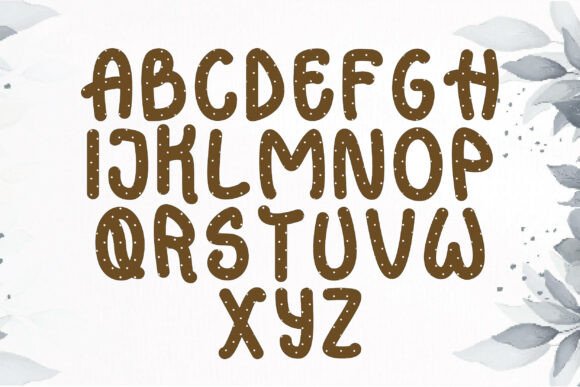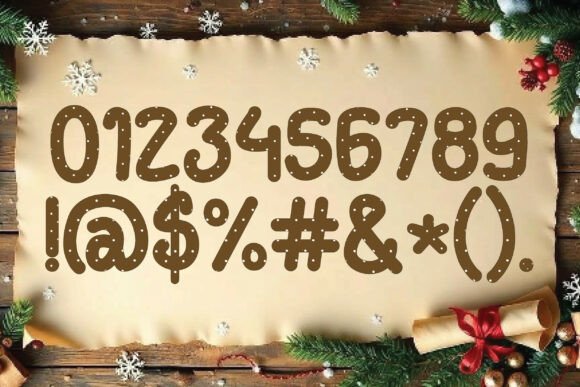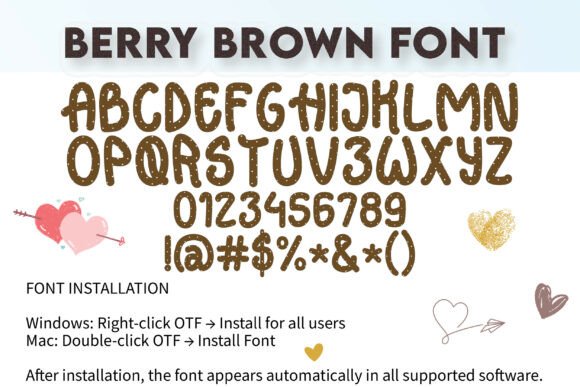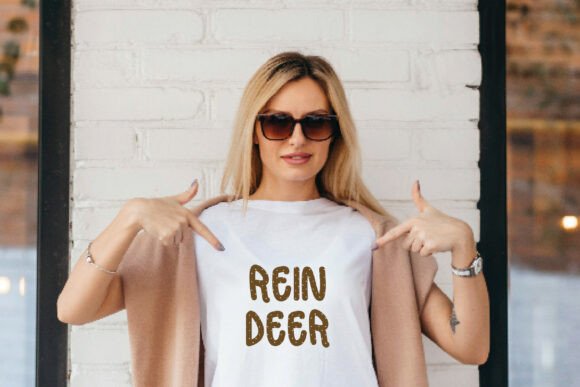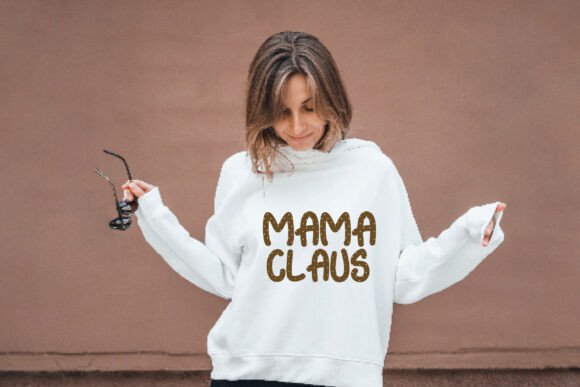
🍓🤎 Introducing Berry Brown Font: The Cute & Sweet Display Alphabet for Your Designs
Are you looking for a font that can add a touch of warmth and friendliness to your designs? Look no further than Berry Brown Font, a charming and playful display font that’s perfect for a variety of creative projects. With its soft curves and bubbly character style, this font is sure to bring a smile to your audience’s faces.
What is Berry Brown Font?
Berry Brown Font is a unique and eye-catching display font that’s designed to add a cute and sweet touch to your designs. Its soft, rounded edges and playful character style make it perfect for fun and creative projects that need a personal touch. Whether you’re designing for kids or adults, this font is sure to delight.
Berry Brown Font is a versatile font that can be used for a wide range of projects, including:
- Kids’ designs: Create fun and engaging designs for kids with this playful font.
- Branding: Add a touch of warmth and friendliness to your brand with this unique font.
- Invitations: Create sweet and charming invitations for parties, events, and more.
- Stickers: Design cute and colorful stickers for kids or adults.
- Scrapbooking: Add a personal touch to your scrapbooking projects with this beautiful font.
- Planners: Create fun and functional planners that are perfect for kids or adults.
- Social media graphics: Add a touch of personality to your social media graphics with this playful font.
- Digital products: Use this font to create engaging digital products, such as printables or workbooks.
- Classroom materials: Create fun and engaging classroom materials, such as posters or worksheets.
- DIY craft projects: Add a personal touch to your DIY craft projects, such as signs or decorations.
Why Choose Berry Brown Font?
There are many reasons why Berry Brown Font is a great choice for your designs:
- Unique and eye-catching: This font is sure to stand out in your designs.
- Cute and playful: Add a touch of warmth and friendliness to your designs.
- Versatile: Use this font for a wide range of projects, from kids’ designs to branding.
If you’re looking for a font that can add a touch of warmth and friendliness to your designs, Berry Brown Font is the perfect choice. With its soft curves and bubbly character style, this font is sure to delight your audience. Try it today and see the difference it can make in your designs!